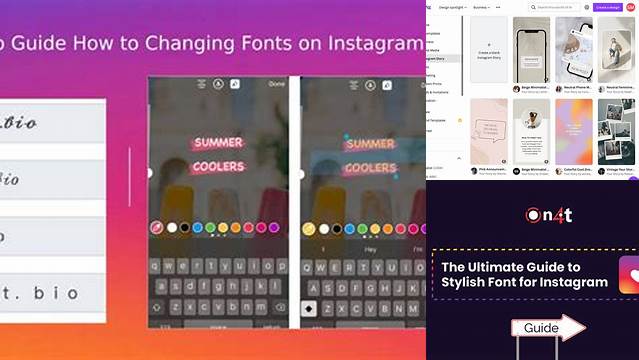
Cool Instagram Fonts: Copy & Paste Guide For 2024
Want to spice up your Instagram game? One of the easiest ways to make your posts stand out is by using unique and eye-catching fonts. But let's face it, Instagram itself doesn't offer a ton of options. That's where Instagram fonts generators come in! These tools let you create cool and different text styles that you can then copy and paste into your Instagram bio, captions, and comments. Let's dive into how you can use these generators to make your Instagram profile pop!
1. What are Instagram Fonts Generators?
Okay, guys, so what exactly are these Instagram font generators? Simply put, they're online tools that allow you to convert regular text into a variety of stylish fonts that aren't natively available on Instagram. These generators use Unicode characters to create different text styles. Unicode is a standard that assigns a unique number to every character, no matter the language or platform. Because of this, you can copy and paste these special characters into your Instagram bio, captions, and comments. It's like having a secret weapon to make your profile stand out from the crowd!
The coolest part is that most of these generators are super easy to use. You just type your text into the generator, and it instantly gives you a bunch of different font options to choose from. Then, you just copy the font you like and paste it into your Instagram. Easy peasy!
Why use them? Because let's be real, the default Instagram font can get a little boring. Using different fonts can help you express your personality, highlight important information, or just make your profile look more visually appealing. Plus, it's a fun way to experiment with your branding and see what resonates with your audience.
2. How to Use an Instagram Font Generator (Step-by-Step)
Using an Instagram font generator is super simple. First, find a generator you like – there are tons of them online! A quick Google search for "Instagram font generator" will give you plenty of options. Once you've found one, here’s the lowdown:
- Type Your Text: In the generator, there's usually a text box where you can type whatever you want. This could be your bio, a caption for your photo, or even just a comment.
- Browse the Fonts: After you type your text, the generator will automatically create a bunch of different font options for you. Scroll through them and see which ones catch your eye. Look for fonts that match your vibe and the message you're trying to convey.
- Copy Your Favorite: Once you find a font you like, just click the "copy" button (or however the generator lets you copy the text). This will copy the font to your clipboard.
- Paste into Instagram: Now, head over to Instagram and paste the font into your bio, caption, or comment. You can do this by tapping and holding in the text box and then selecting "paste." Boom! You've got a cool new font on your Instagram.
Pro Tip: Some generators also let you create fancy text with symbols and emojis. So, feel free to experiment and see what kind of cool stuff you can come up with!
3. Best Instagram Font Generators in 2024
Alright, so you're ready to start using an Instagram font generator, but which one should you choose? Here are a few of the best options out there:
- LingoJam: LingoJam is a classic choice for Instagram font generation. It's super easy to use and offers a wide variety of fonts. Plus, it's free!
- Cool Symbol: Cool Symbol not only offers fonts but also tons of symbols and emojis to spice up your Instagram posts. It's a great all-in-one tool.
- FontGet: FontGet has a clean and simple interface, making it easy to find the perfect font for your Instagram. It also has a preview feature so you can see how the font will look before you copy it.
- Instagram Fonts Generator.com: Straightforward and easy to use. This website does exactly what it says on the tin. Input your text and get a variety of cool fonts in seconds.
These are just a few of the many Instagram font generators out there. So, feel free to try out a few and see which one you like best. The most important thing is to find a generator that's easy to use and offers the fonts you want.
4. Instagram Bio Fonts: Making a Great First Impression
Your Instagram bio is like your digital business card. It's the first thing people see when they visit your profile, so you want to make a good impression. Using a unique font in your bio can help you stand out from the crowd and show off your personality.
Tips for using fonts in your bio:
- Keep it readable: While it's tempting to use a super fancy font, make sure it's still easy to read. You don't want people to struggle to understand what your bio says.
- Highlight keywords: Use different fonts to highlight important keywords in your bio. For example, if you're a photographer, you could use a bold font for the word "photographer."
- Reflect your brand: Choose a font that matches your brand's aesthetic. If you have a fun and playful brand, you might want to use a whimsical font. If you have a more serious brand, you might want to use a classic font.
30. Troubleshooting Instagram Fonts: Common Issues and Solutions
Sometimes, you might encounter issues when using Instagram fonts. One common issue is that some fonts may not display correctly on all devices. To avoid this, try using more common fonts or testing your fonts on different devices before posting. Another issue is that some fonts may not be readable, especially on smaller screens. To address this, choose fonts that are easy to read and avoid using too many different fonts in one post. If you face any issues, remember to keep it simple and test!